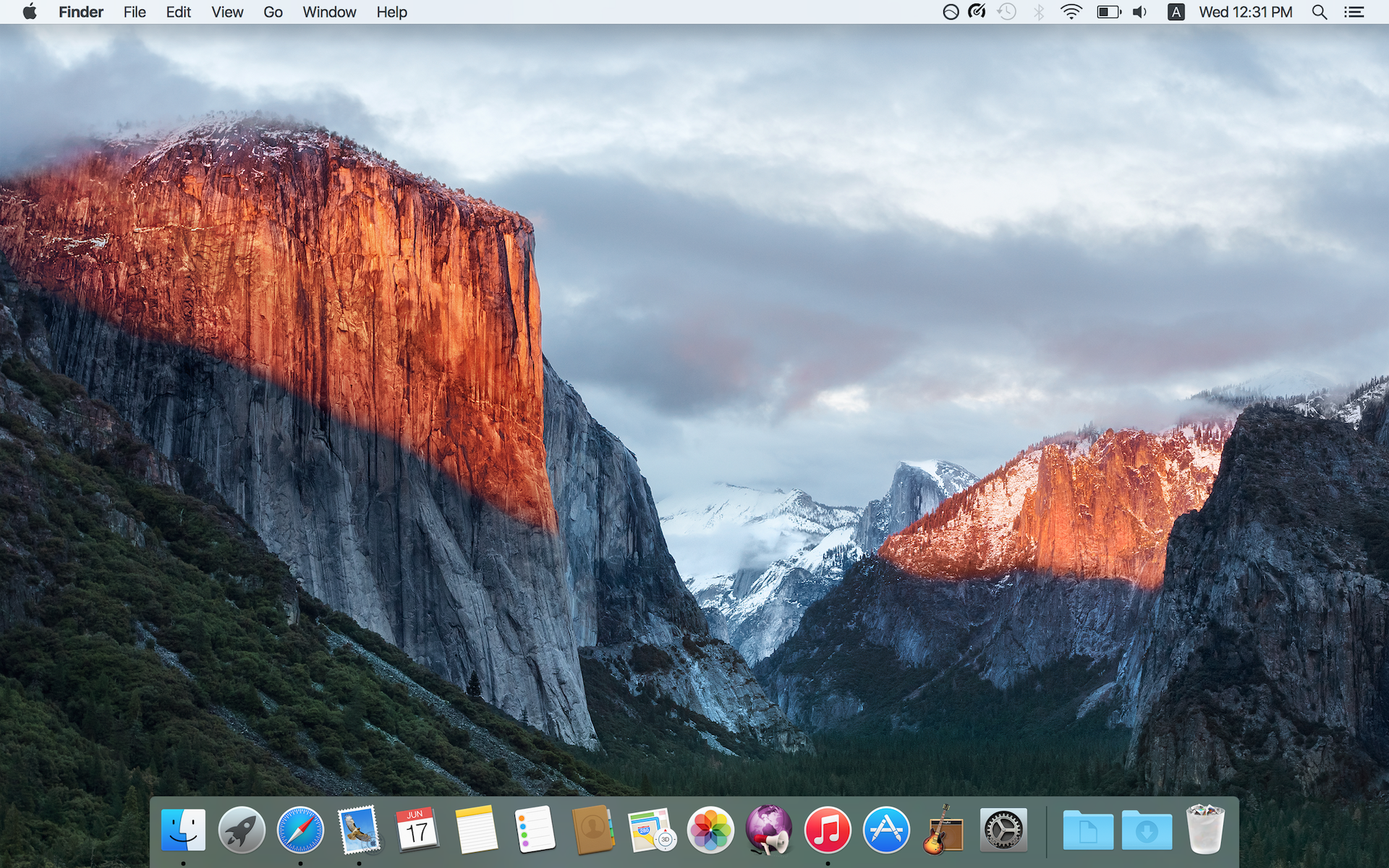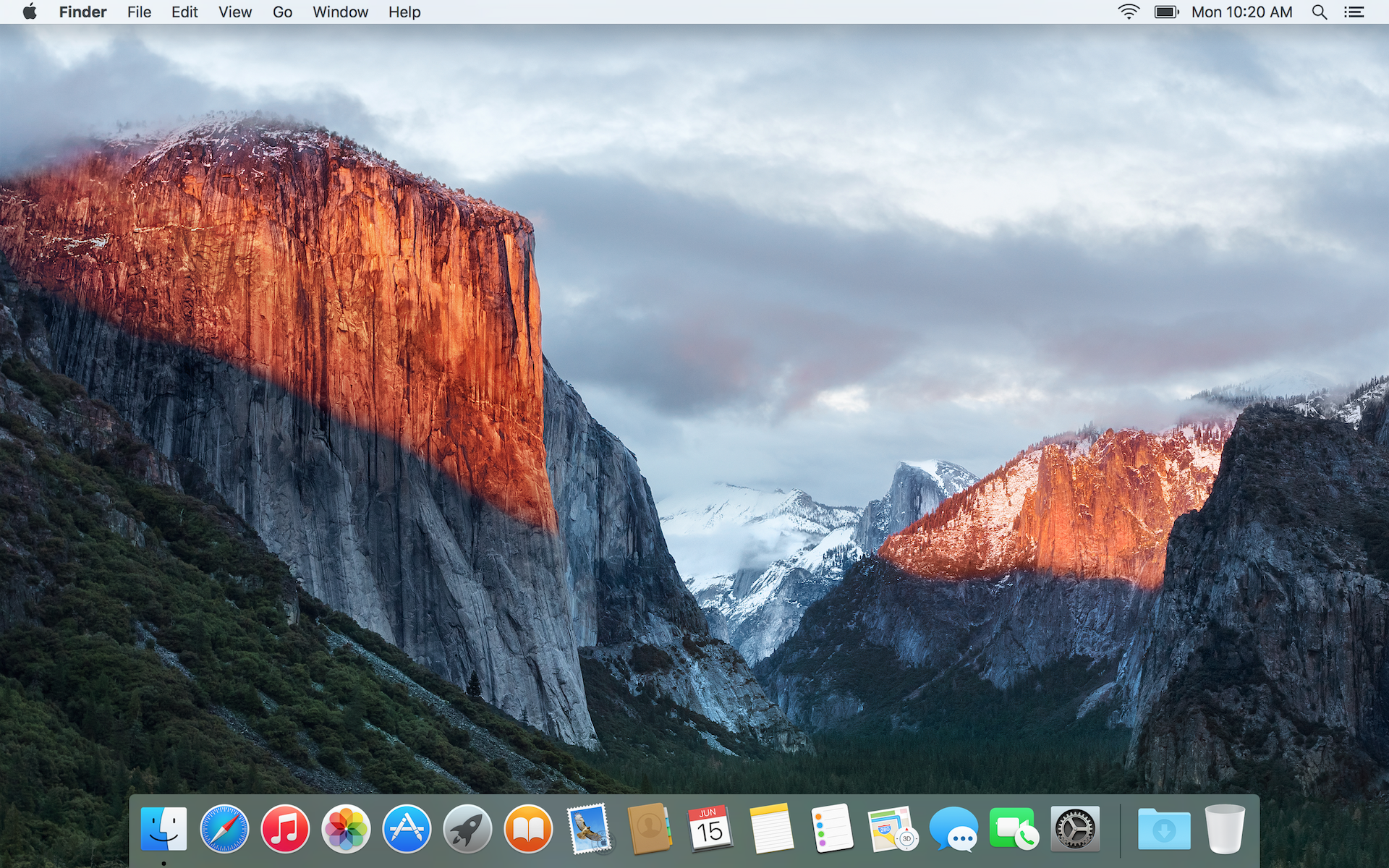
How do you like the new font?
It uses a new "version" but really it's just the existing one. San Francisco on the watch was renamed to San Francisco Compact. San Francisco is the one used on iOS and Mac. There are two variants.
Oh yes, I've just downloaded the new version from the dev centre and compared it to the old one. SF Compact Display is (besides what I presume are subtle tweaks to the tracking) the same font as the old SF Display.
I'm glad they tweaked it for iOS and OS X, that version looks much better at larger sizes.
it's possible that it's a yosemite problem? I assume you are using the ported fonts on yosemite. The metric of SFNS (what the filename is under 10.11) is different from helvetica neue, so it does look odd in several places on 10.10. For example, go to "About This Mac"View attachment 560896
Aha! My About This Mac looks the same, haven't noticed that before. Yeah, it's definitely a Yosemite problem.
Interestingly enough switching off "LCD font smoothing" makes San Fran look cleaner (if thinner).
The new Macbooks are the first Apple computers to use a different font on the keyboard in over 10 years. A font they've now changed significantly just weeks after shipping those devices.
But again... I still think it is a change for the better. The original version of San Francisco was not great.
You didn't say keyboards! But the fact that I didn't know there was a different keyboard font on the MacBook speaks volumes... if you look at MBP keyboards they don't exactly use Helvetica, in fact they look very similar, if not a little thicker, to the MacBook keyboard.
I've been playing with the developer fonts and it seems like the Text version of SF looks more like the El Capitan spacing than the Display version. It's not 100% (it's a little bigger, spaced more like Helvetica Neue), but I feel like it works better with Yosemite, especially in apps like Mail and Safari. Any thoughts? Here are the Text system fonts if people would like to try them out and see which they like better. Install them just like in the OP's post.
Display
El Capitan
Text
I can definitely notice a change in font throughout El Capitan, and I think its awful. They stretched out a lot of letters, I think it looks worse than Helvetica Nue. However maybe, because I don't have a retina screen it looks worse. Either way it's definitely noticeable which itself is annoying.
Text version of SF looks more like the El Capitan spacing than the Display version
Most likely. Text is the one that will be used most of the time. Display is probably only used on things like the date in NC, the headers in Reminders, the date in Calendar, the title when you have an empty library in iTunes, the welcome screens iWork, etc., very few and far between. It's only meant for large titles.
I LOVE LOVE LOVE it on my iPad and iPhone (massive improvement over Helvetica) but on my Mac with an external 27" non-retina display... it's only marginally better than Helvetica (or maybe even no better). It's too small, thin and light. I wish there was a way to bump up the size and weight a touch overall (just 1 px bigger overall and one weight heavier overall). If not I may hack Lucida Grande back in (as I'd done with Yosemite since Helvetica was horrible). I'm guessing it's better on Retina screens.